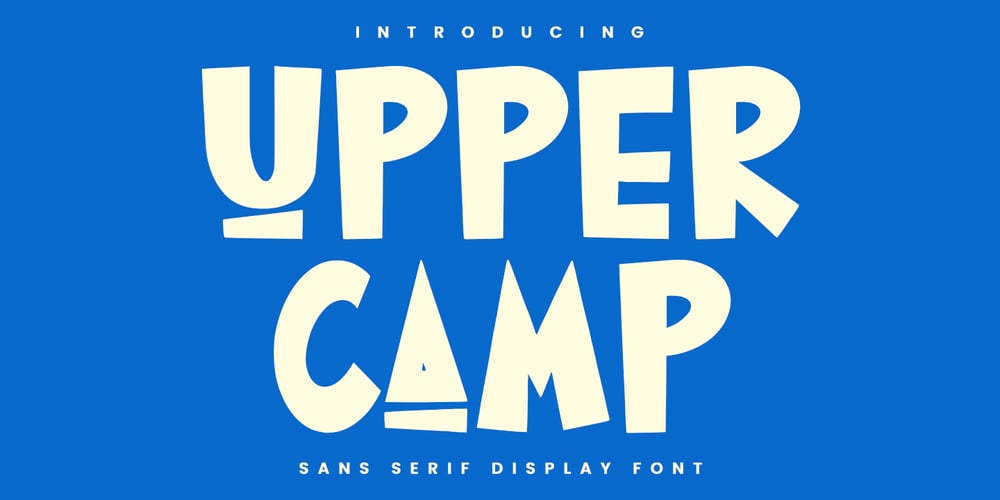
MC Upper Camp
MC Upper Camp font
MC Upper Camp Font Family was designed by Gilang Maulana and published by Maulana Creative. MC Upper Camp contains 1 styles and family package options. Upper Camp fun cartoon sans display font, fun character with alternates to give you an extra creative work. Upper Camp fun cartoon display font support multilingual language.Many Thanks,Maulana Creative